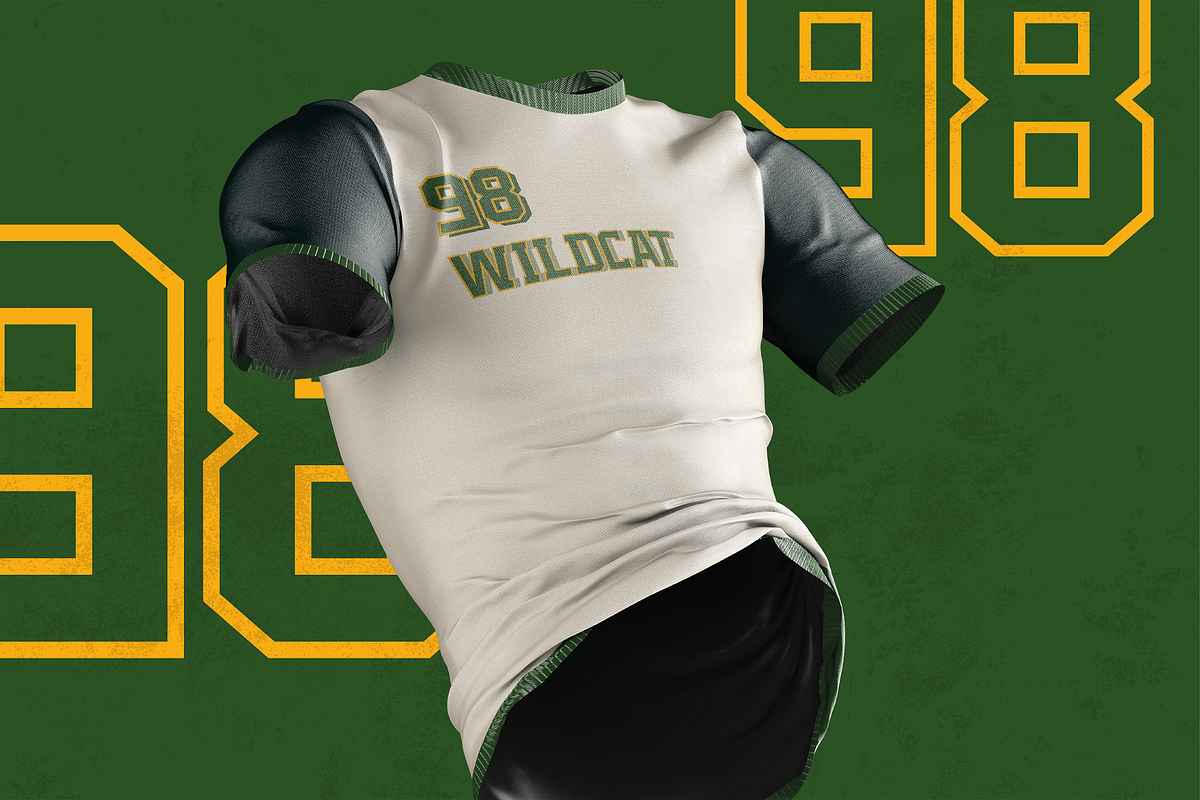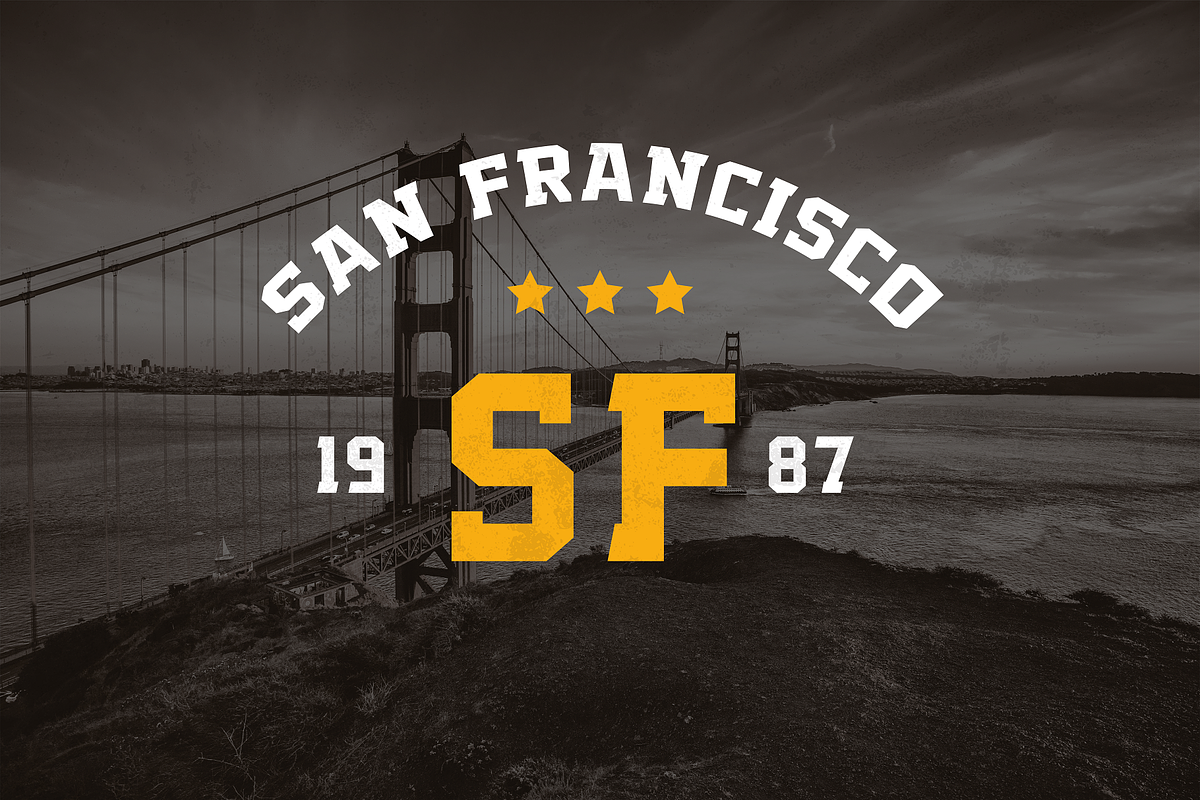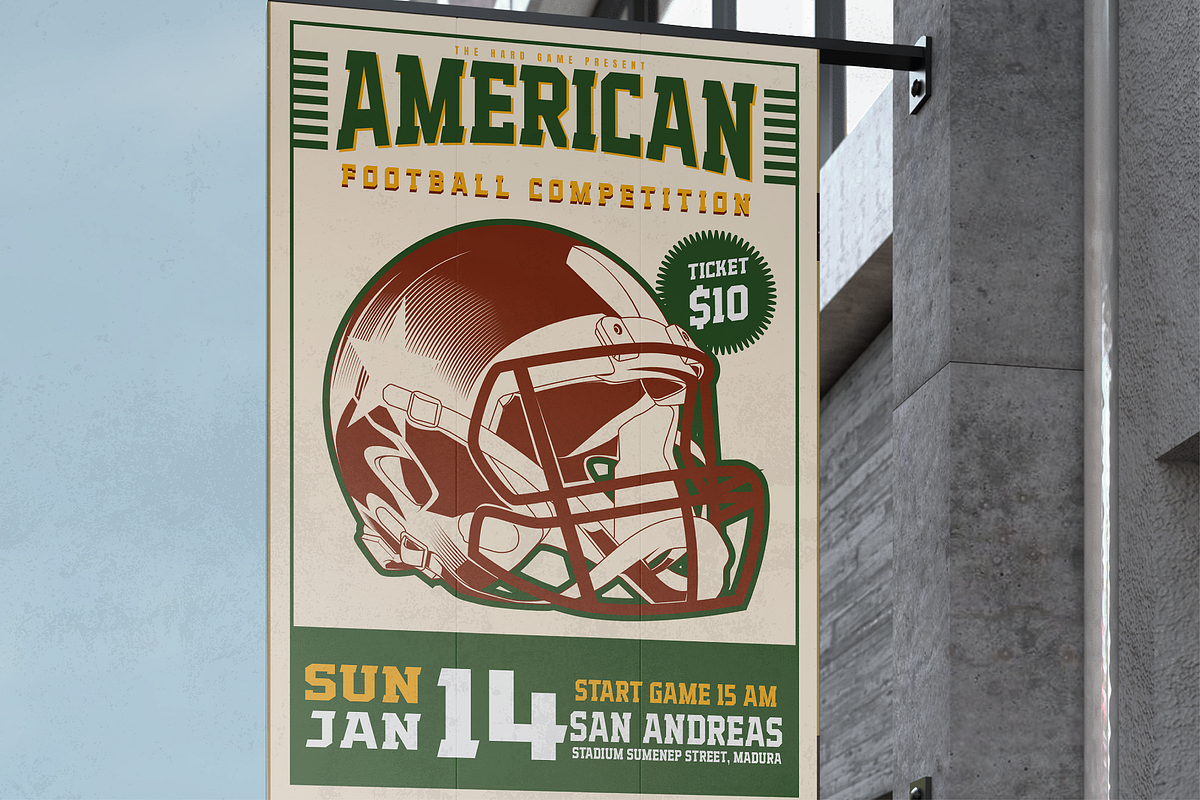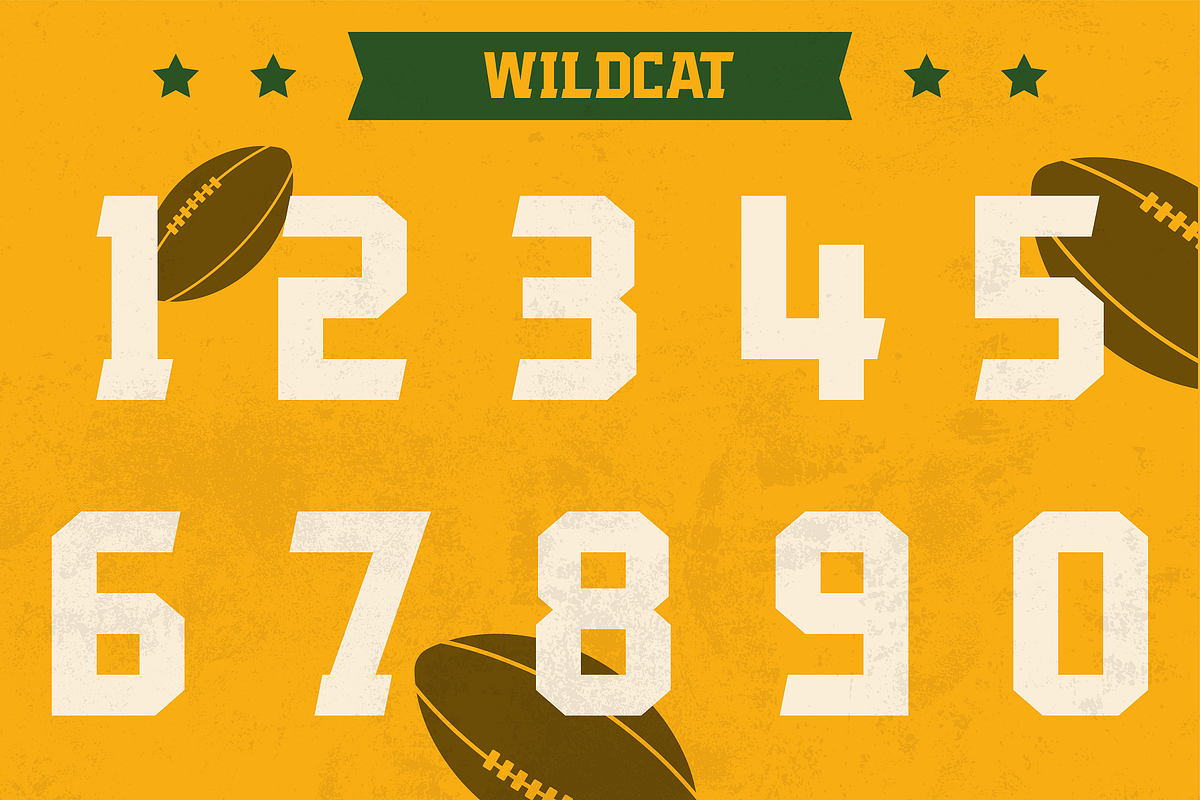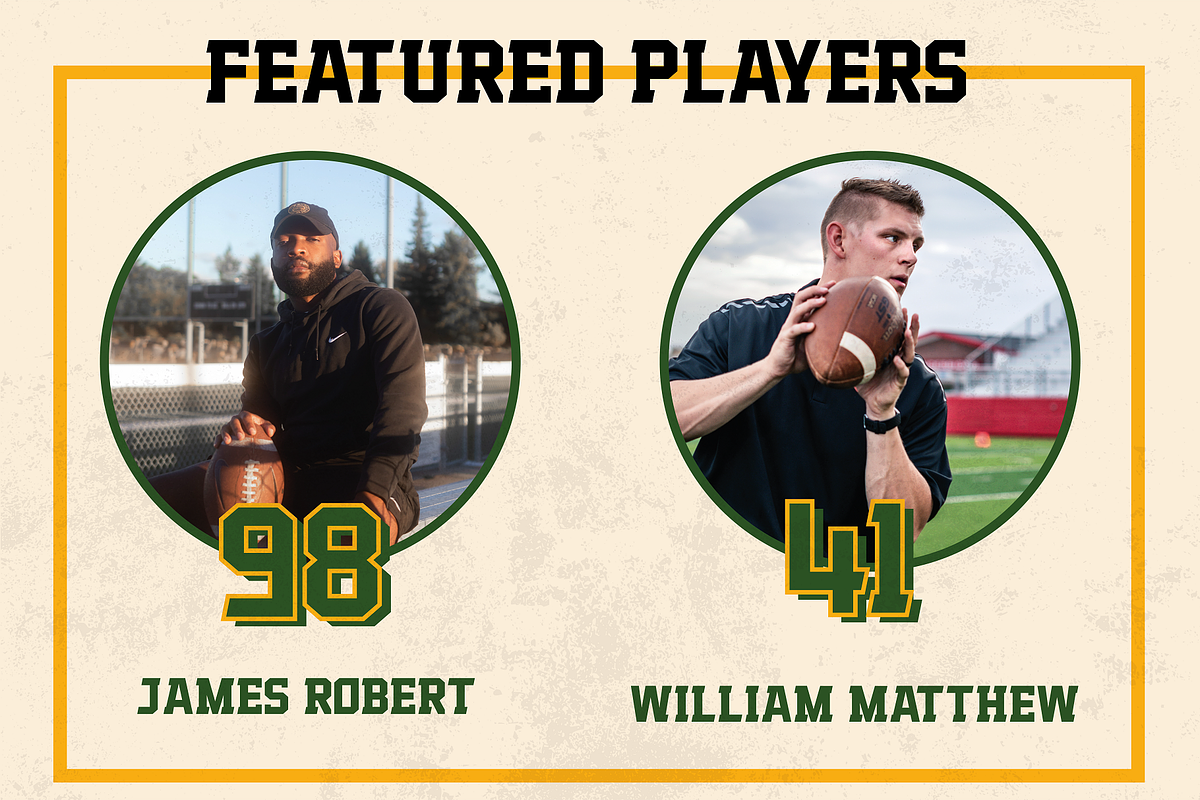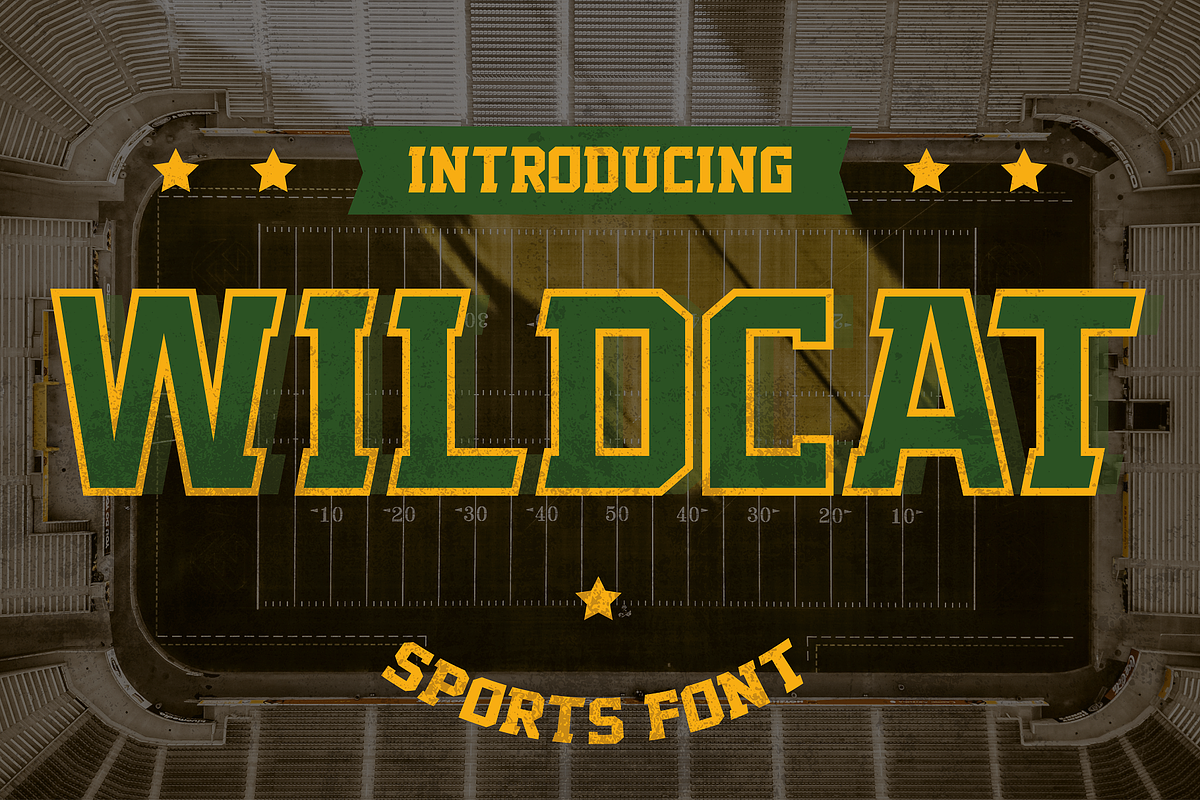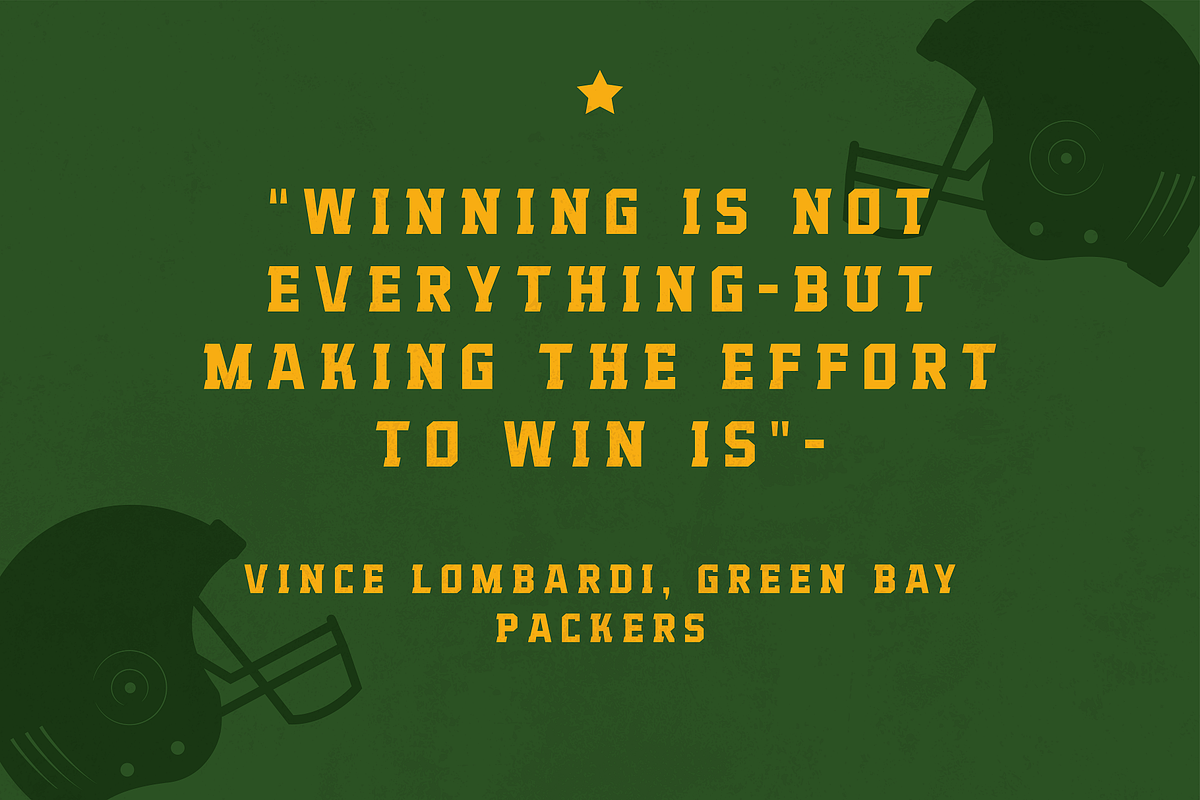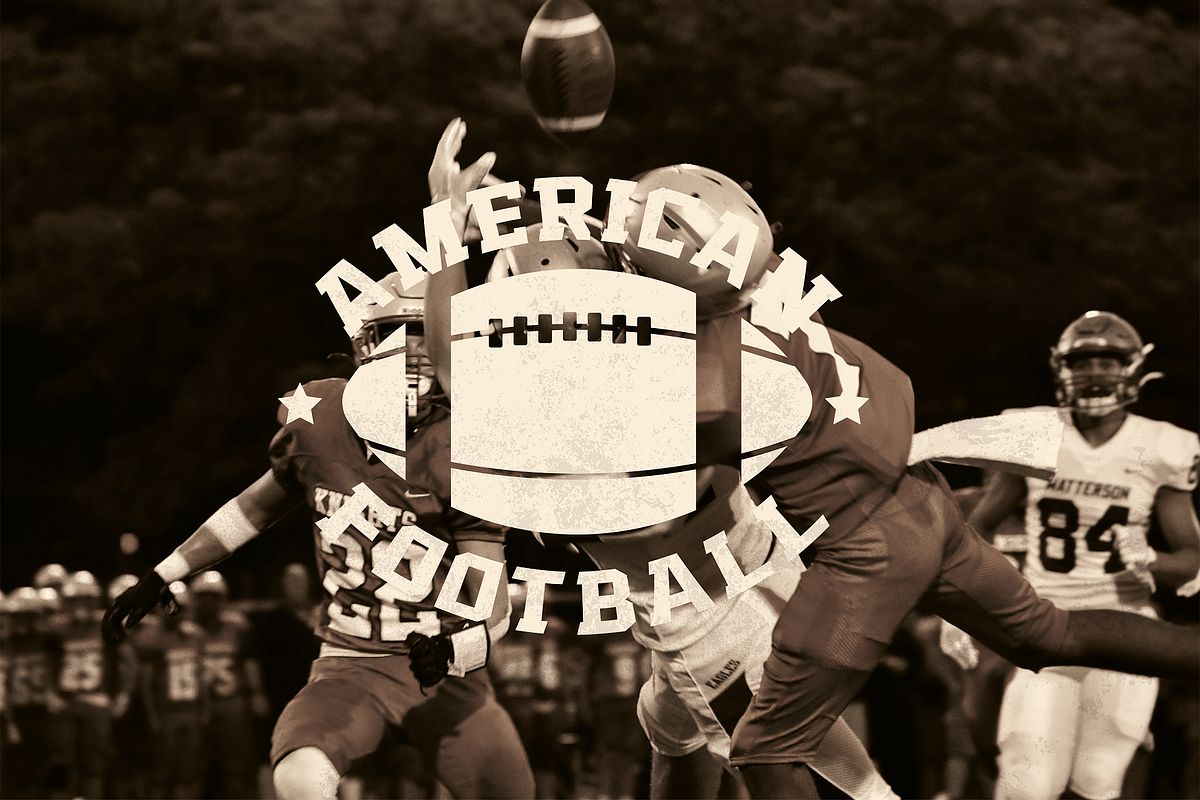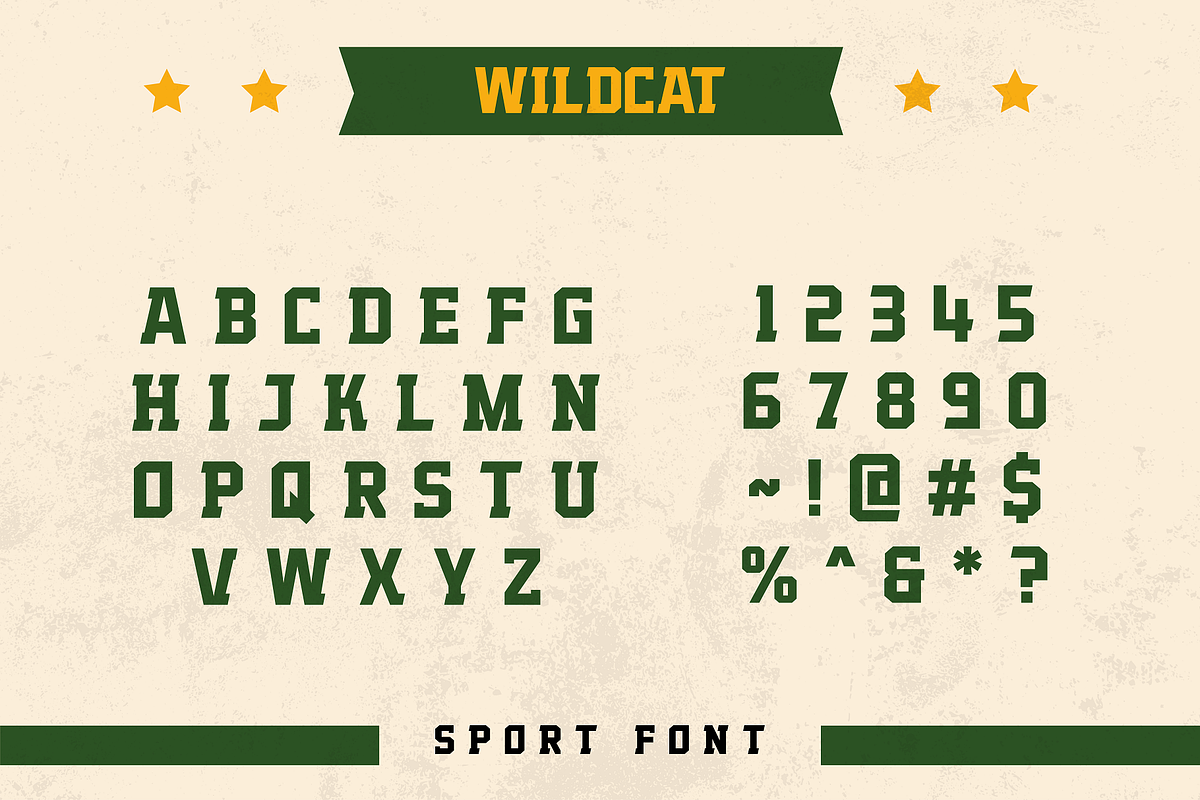
Wildcat - Varsity Sport Typeface
Wildcat is an athletic typeface perfect for basketball, football, softball, baseball, soccer, and hockey related projects. You can use it to create powerful logotypes, posters, apparel, magazines, stationary, headlines, labels, badges, and much more. Give your designs a bold look today with Wildcat!